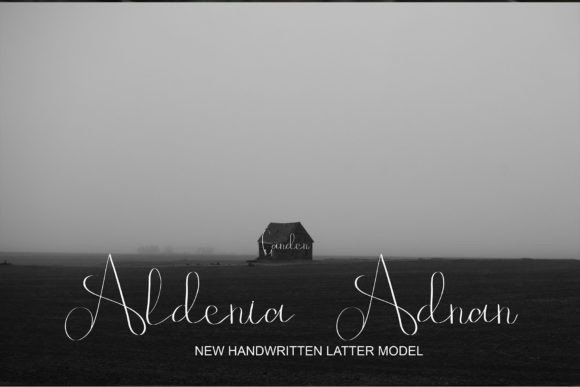
Where Creativity Meets Simplicity: The Story of Aldenia Adnan Font
Have you ever been brainstorming a new design project, staring at a blank page, and suddenly, a burst of inspiration hits you? The words start flowing, and you find yourself sketching out ideas that seem to come alive. This is exactly how the Aldenia Adnan Font was born – out of a creative moment that sparked a beautiful, hand-written font.
Aldenia Adnan Font is a simple yet stylish typeface, perfect for websites, advertising, or any project where you want to add a touch of elegance. Despite its simplicity, this font exudes a cool and modern vibe that’s sure to grab attention. For designers, Aldenia Adnan Font is a valuable asset, offering a unique and versatile option for their next project.
Aldenia Adnan Font Key Features
- Font Type: Script font
- Unique Characteristics: Elegant, cursive design with subtle flair and connecting strokes, ideal for creative and decorative purposes
A Designer’s Review of Aldenia Adnan Font
As a designer, I was excited to dive into the Aldenia Adnan Font and see what it had to offer. Here are my thoughts:
- Unique and creative font design – Aldenia Adnan Font has a distinct look that sets it apart from more traditional fonts.
- Wide range of weights and styles – The font comes in a variety of weights and styles, making it versatile for different design applications.
- Legibility – The font is well-designed for readability, with clear and crisp letterforms that are easy on the eyes.
- Limited language support – The font may not support certain languages or character sets, which could be a limitation for designers working on multilingual projects.
- Not ideal for small text sizes – The font may not be the best choice for small text sizes, as the letterforms can become distorted and difficult to read.
- Lack of OpenType features – The font may not include advanced OpenType features, which could limit its use in certain design applications.
Overall, I think Aldenia Adnan Font is a great addition to any designer’s toolkit, but it’s not without its limitations. While it excels in terms of unique design and wide range of weights and styles, it may not be the best choice for every project.
Tips for Getting the Most Out of Aldenia Adnan Font
Here are some tips for getting the most out of Aldenia Adnan Font:
- Use Aldenia Adnan Font for titles and headings to add a touch of elegance and sophistication.
- Combine Aldenia Adnan Font with other fonts to create a unique and eye-catching design.
- Experiment with different font sizes, colors, and styles to achieve the desired look.